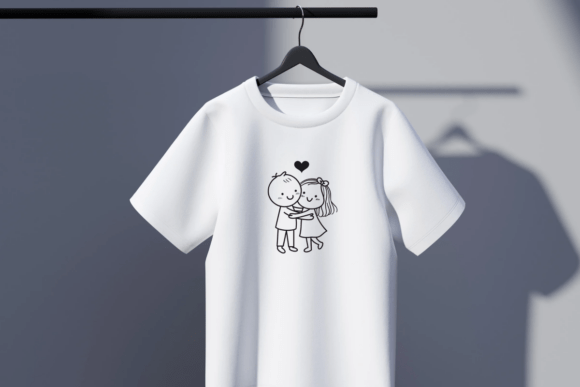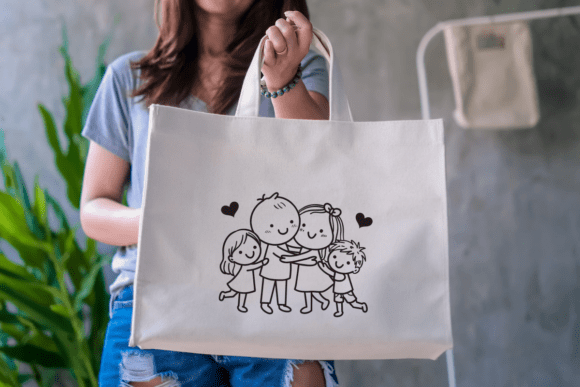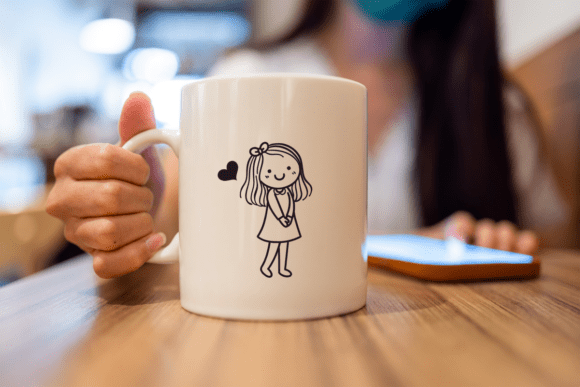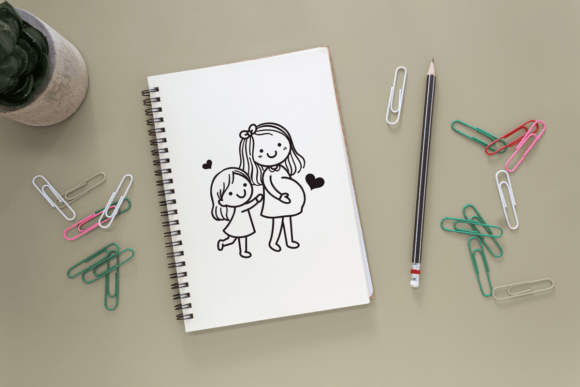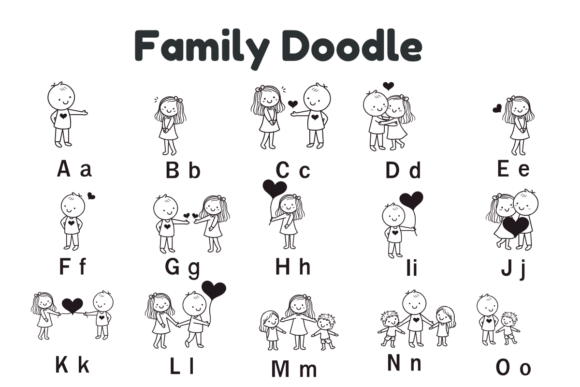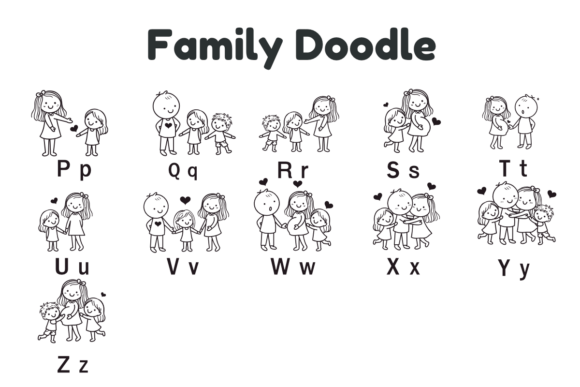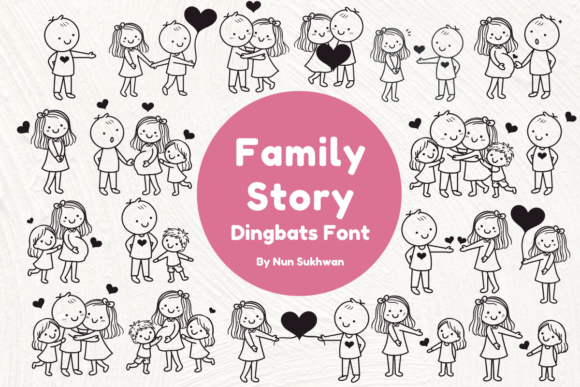
Introducing Family Story Font: A Heartwarming Dingbat Typeface for Storytelling
Are you a designer, crafter, or creative looking for a unique and expressive way to tell stories and convey emotions in your projects? Look no further than the Family Story Font, a delightful dingbat typeface that brings the precious moments of life to your creative canvas. This charming font is a collection of hand-drawn characters that will add an instant layer of emotion and storytelling to your designs.
What is Family Story Font?
Family Story Font is not a traditional alphabet, but a comprehensive collection of symbolic illustrations, known as dingbats, that tell a visual narrative of love, growth, and connection. Each icon in the font is meticulously crafted with a clean, doodle-style aesthetic, featuring adorable stick-figure families, expectant parents, playful children, and sweet romantic gestures.
The Magic of Family Story Dingbats Font
The magic of the Family Story Dingbats font lies in its incredible versatility for personal and milestone-based designs. Whether you’re creating custom family trees, personalized scrapbooks, baby announcements, or romantic gift tags, this font is the perfect tool to add a touch of warmth and personality to your projects.
Key Features of Family Story Font
- Hand-drawn characters: Each icon in the font is carefully crafted with a unique, doodle-style aesthetic that is both playful and charming.
- Comprehensive collection: The font includes a wide range of symbolic illustrations that cover various aspects of family life, from pregnancy and parenthood to childhood and romance.
- Instant emotional connection: The Family Story Font allows you to add an instant layer of emotion and storytelling to your designs, making them more relatable and engaging.
- No custom drawing required: With this font, you don’t need to spend hours drawing custom illustrations from scratch. Simply type in the characters you need and let the font do the rest.
Use Cases for Family Story Font
The Family Story Font is perfect for a variety of creative projects, including:
- Custom family trees: Add a personal touch to your family tree designs with adorable illustrations of family members.
- Personalized scrapbooks: Use the font to create unique and meaningful scrapbook pages that tell the story of your family’s history.
- Baby announcements: Announce the arrival of a new baby with sweet and playful illustrations that capture the joy of parenthood.
- Romantic gift tags: Add a touch of romance to your gift tags with charming illustrations of couples and love.
Why Choose Family Story Font?
If you’re looking for a unique and expressive way to tell stories and convey emotions in your designs, the Family Story Font is an excellent choice. Here are just a few reasons why:
- Unique and eye-catching: The font’s hand-drawn characters are sure to grab attention and add a touch of personality to your designs.
- Time-saving: With the Family Story Font, you can create professional-looking designs in no time, without needing to spend hours drawing custom illustrations.
- Versatile: The font is perfect for a wide range of creative projects, from custom family trees to romantic gift tags.
In conclusion, the Family Story Font is a heartwarming and incredibly expressive illustrative typeface that brings the precious moments of life to your creative canvas. With its comprehensive collection of hand-drawn characters, clean doodle-style aesthetic, and incredible versatility, this font is perfect for designers, crafters, and creatives looking to add an instant layer of emotion and storytelling to their projects. So why wait? Try the Family Story Font today and start creating beautiful, meaningful designs that tell a story.